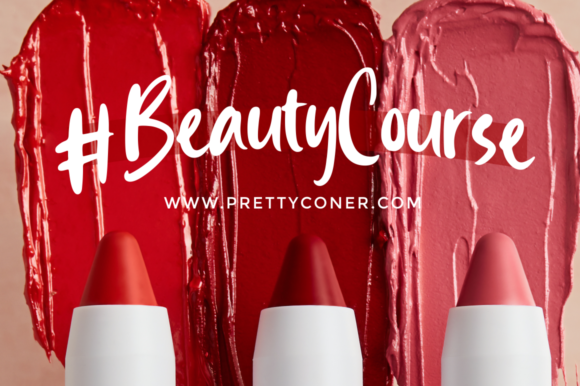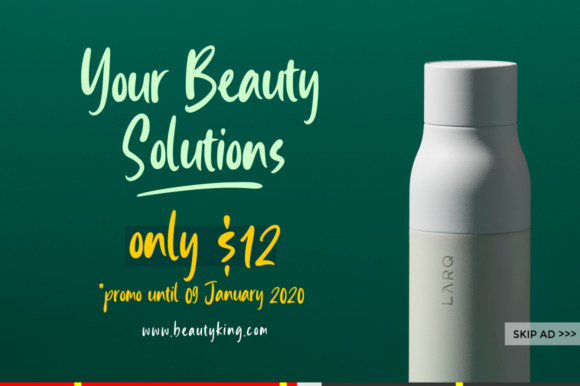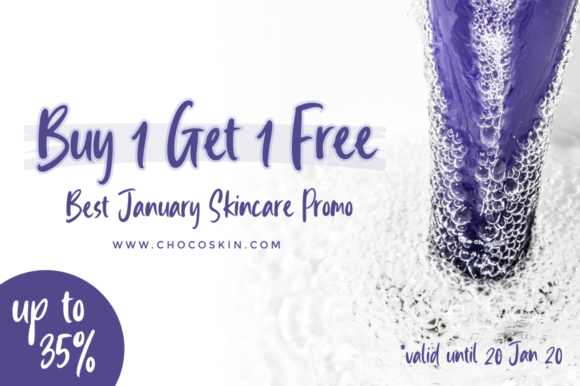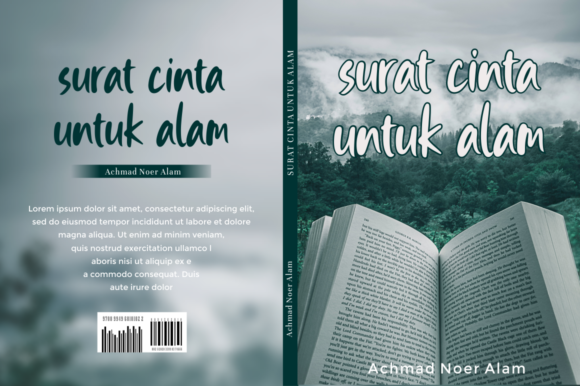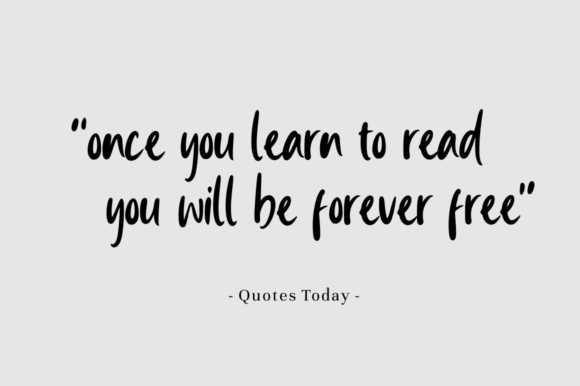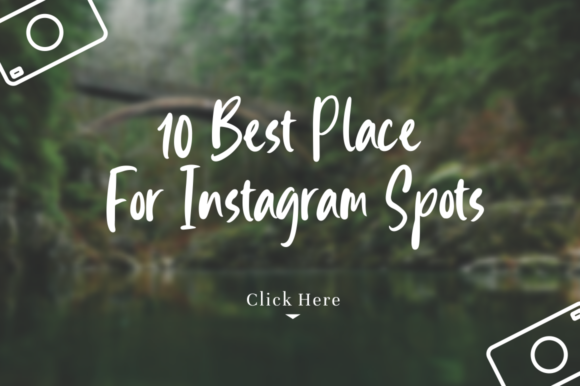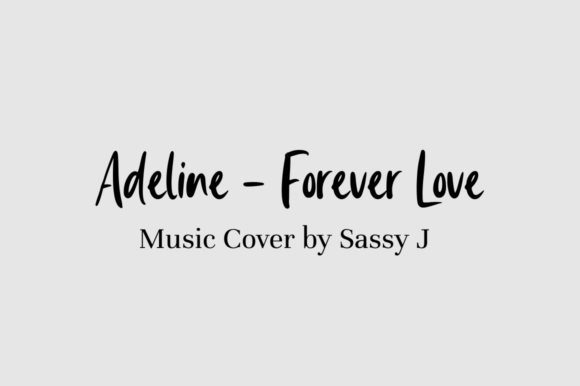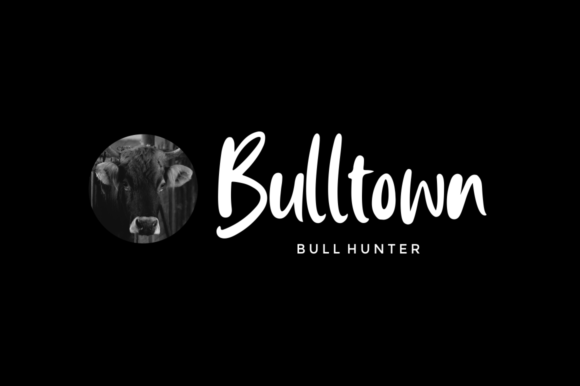
East Watch Font
About East Watch Font
East Watch is a simple and thick lettered handwritten font. Modern and neat, this font will turn each of your designs into outstanding creations!